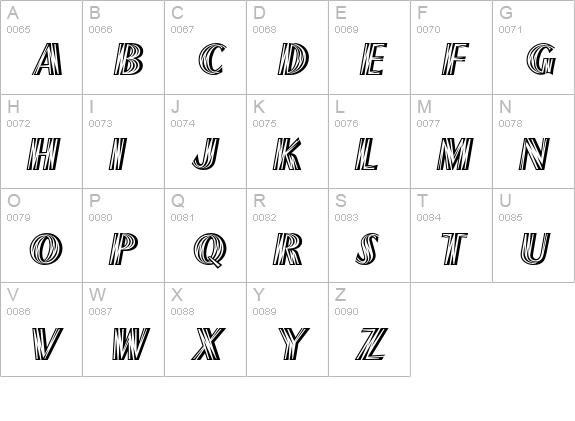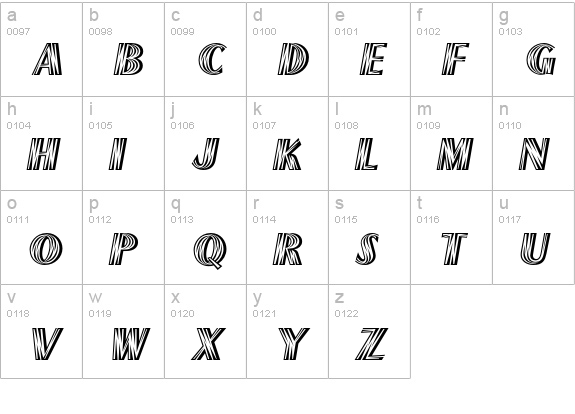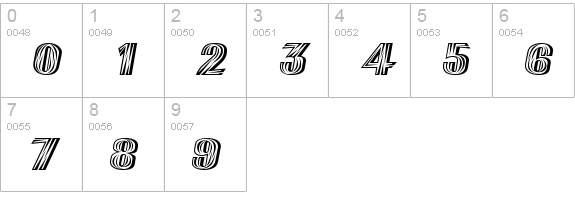
ParisFlashICG Font Details
ParisFlashICG is a stunning and versatile font that effortlessly captures the essence of Parisian elegance. With its delicate strokes and sophisticated letterforms, this font is perfect for adding a touch of French charm to your designs. This font is not only visually appealing but also incredibly functional. Its clean and legible characters make it suitable for a wide range of design projects, from branding and logo design to editorial layouts and signage. Whether you're creating a chic fashion magazine or a stylish invitation, ParisFlashICG will elevate your designs to new heights. One of the best things about ParisFlashICG is that it is completely free. Yes, you read that right! This exquisite font is freely available to download at FontsMarket.com. You don't have to break the bank to add a touch of Parisian sophistication to your designs. Simply head over to FontsMarket.com, download ParisFlashICG, and start creating beautiful designs that will leave a lasting impression. With its timeless elegance and free availability, ParisFlashICG is the perfect choice for designers who want to infuse their creations with a touch of French charm. So why wait? Download ParisFlashICG today and let your creativity soar.